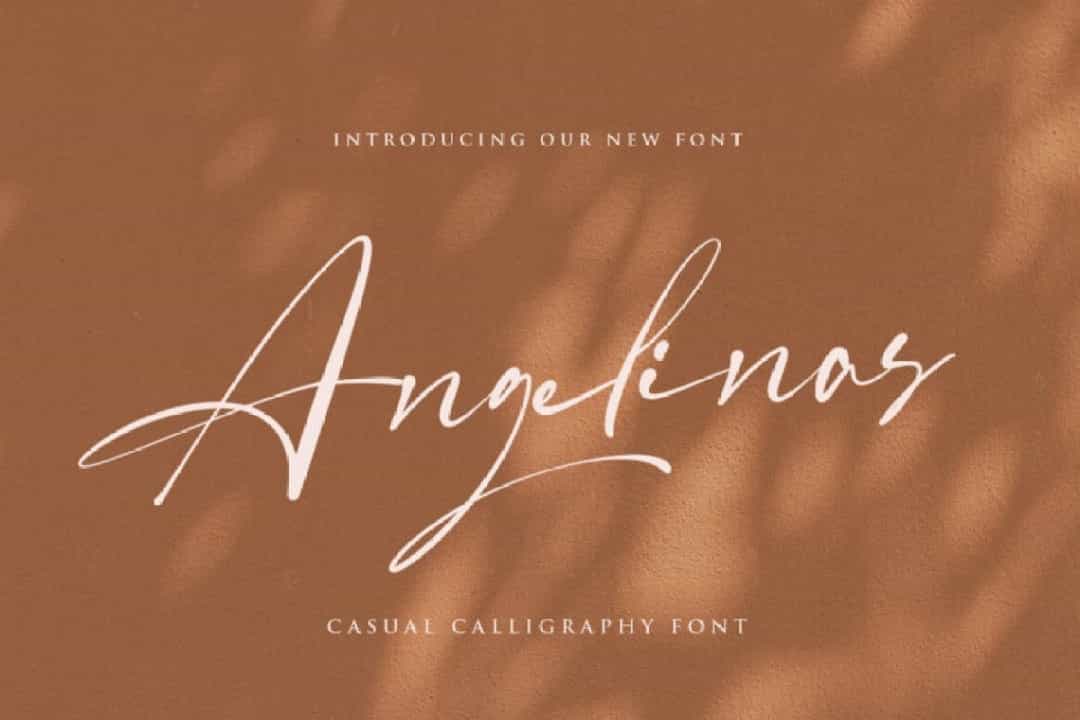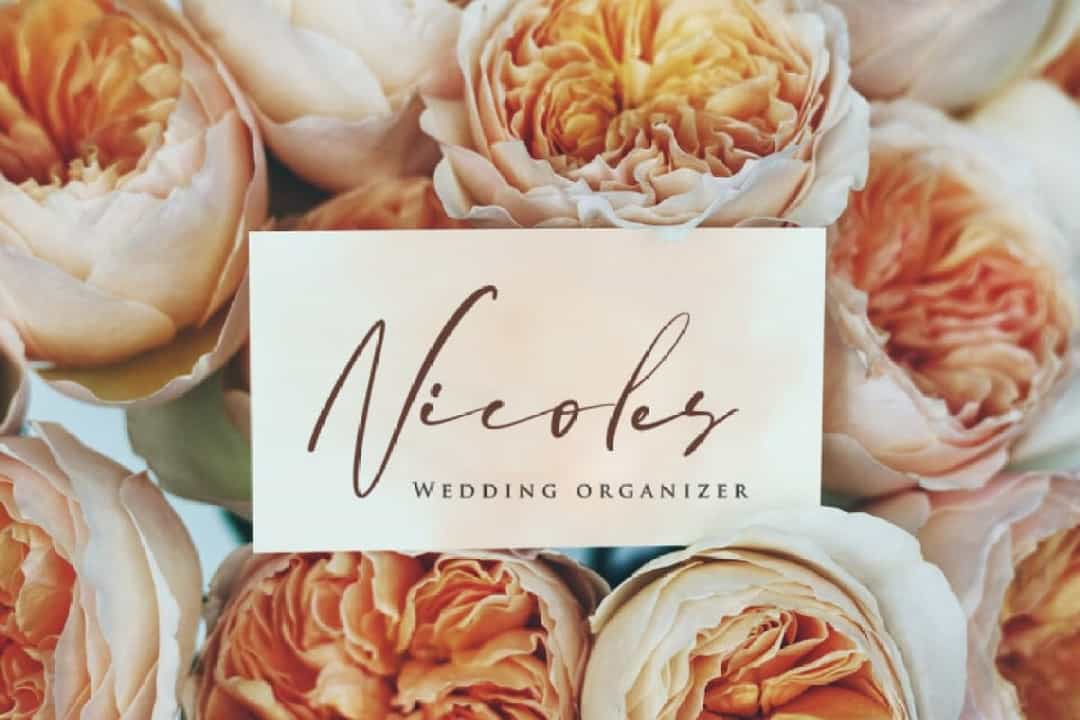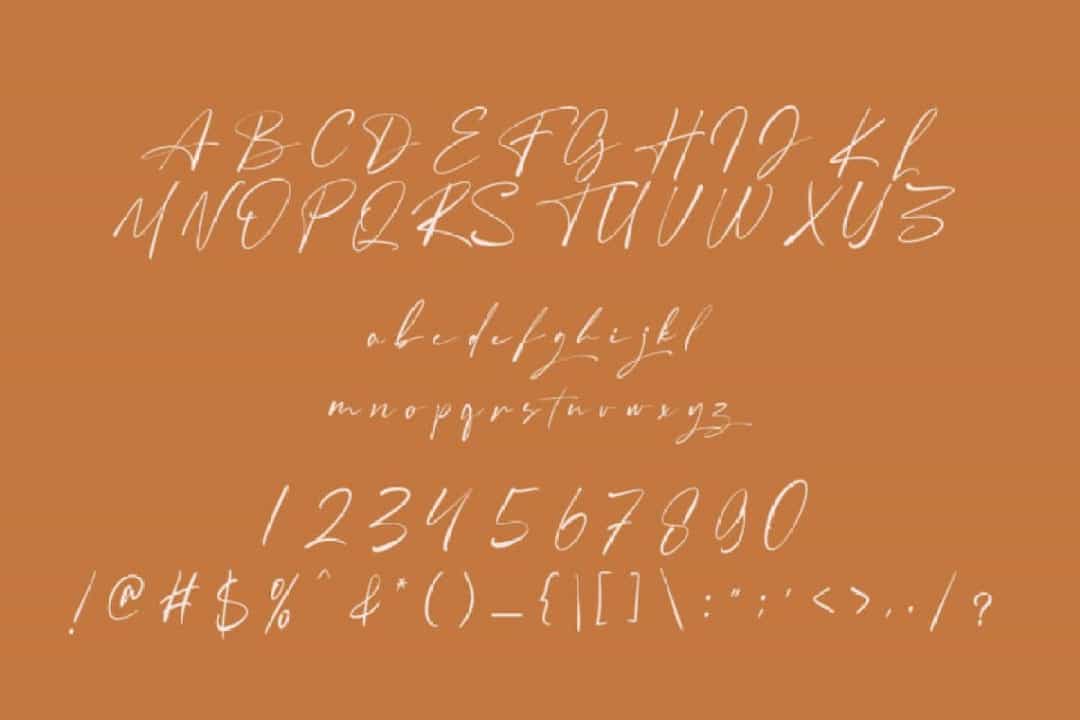
Angelinas is a contemporary and elegant typeface font, with smooth flow of letters that makes for comfort reading; suitable for applications such as wedding cards, logos and cards or labels for red wines. The font of Angelina includes the numbers and letters both in lower and upper case and the striking ligatures to make this font perfect for any project! Ligatures, stunning effects you could use in any project, and all lower case letters and numerals.